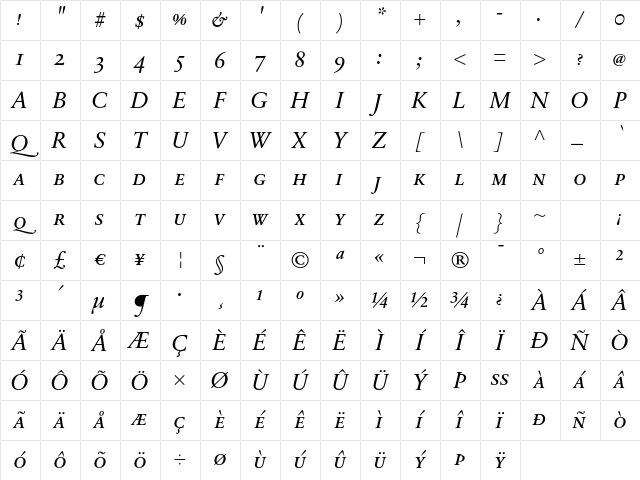
SabonNext RW SC Italic
Design Context for SabonNext RW SC
SabonNext RW SC is a composed and adaptable typeface that performs quietly and consistently across a wide range of design contexts. The slanted form adds forward momentum and visual energy.
Pro Tip: Use SabonNext RW SC for emphasis, pull quotes, and subheadings where its slanted energy can add rhythm to the layout.